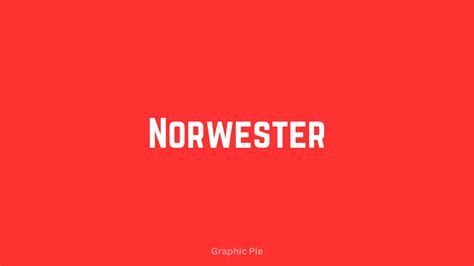
Crafting Winning Designs With Canva Baseball Fonts
Hey guys! Ever wanted to knock your design projects out of the park? Well, today, we’re diving deep into the world of Canva baseball fonts , and trust me, it’s a game-changer! These fonts aren’t just for sports-themed projects; they bring a cool, energetic vibe to all sorts of designs. Whether you’re crafting social media posts, designing event flyers, or even sprucing up your website, a well-chosen baseball font can add that extra punch. Let’s get started on how you can use these fantastic fonts in Canva to create designs that are sure to be a home run!
Why Choose Baseball Fonts for Your Designs?
So, why the craze for baseball fonts ? Seriously, why should you even bother? Well, first off, they’re super versatile! Sure, they scream ‘sports,’ but they also have this awesome, vintage, and sometimes even a modern feel. Think about it: they evoke a sense of nostalgia, tradition, and good ol’ American fun. This makes them ideal for a wide array of projects. Plus, they’re generally easy to read, which is a big win when you want your message to be clear. I mean, nobody wants to squint to figure out what your flyer is saying, right? They’re perfect for creating a sense of excitement and energy! From creating logos to designing posters for the upcoming game, baseball fonts are the perfect solution. It can give your content a professional look.
The Versatility of Canva Baseball Fonts
Baseball fonts are more than just about bats and balls; they’re about capturing a vibe. You can use them for everything from team logos and merchandise to event promotions and even personal projects. Imagine creating a retro-themed party invitation, a cool t-shirt design, or even a sleek website header – all made better with the right font. Moreover, the versatility of these fonts is really what makes them stand out. You have the classic, blocky styles that shout ‘sports,’ and then you have the more stylized, script-like fonts that add a touch of elegance. This allows you to mix and match to find something that perfectly fits your needs. You can easily find the perfect font that matches your needs. Also, a good Canva baseball font can make your content and designs look amazing!
Where to Use Baseball Fonts
The applications are endless, honestly. Consider these examples:
• Team Logos: Create a strong brand identity for your team. The right font can make your logo instantly recognizable and memorable.
• Event Flyers: Promote your sports events with eye-catching flyers that grab attention.
• Social Media Graphics: Design engaging social media posts to boost your online presence.
• Merchandise: Design cool t-shirts, hats, and other merchandise.
• Personal Projects: Add a sporty touch to your personal projects, such as scrapbooks or invitations.
Finding the Perfect Baseball Font in Canva
Alright, let’s get down to the nitty-gritty: finding the ideal baseball font in Canva. Canva’s library is massive, so finding the right one might seem a bit daunting. But don’t worry, I’m here to guide you through the process, step by step! This is a simple process that will help you create better content.
5. Preview and Experiment: Canva allows you to preview how each font looks with your text. Click on different fonts to see them in action. Experiment with different sizes, colors, and styles to see what works best for your design.
6. Filter by Style: If you’re looking for something specific, try filtering by font styles like ‘bold,’ ‘script,’ or ‘sans-serif.’ This can help you find fonts that meet your specific needs.
7. Choose Your Font: Once you’ve found the perfect font, click on it to apply it to your text. Adjust the size, color, and spacing as needed to create your final design.
Tips for Selecting the Right Font
Choosing the right font is crucial for any design. Here are a few tips to help you make the right choice:
• Consider Your Audience: Think about who you’re trying to reach. A fun, playful font might be perfect for kids’ sports events, while a more professional font may be suitable for a high-school or college team.
• Match the Tone: The font should match the overall tone of your design. If you’re going for a vintage look, choose a retro-style font. If you want something modern, opt for a clean, bold font.
• Ensure Readability: Make sure your font is easy to read, especially if you’re using it in a headline or a large block of text. Avoid fonts that are too ornate or difficult to decipher.
Conclusion: Hit a Home Run with Canva Baseball Fonts!
So there you have it, folks! Using Canva baseball fonts opens up a world of creative possibilities. From team logos to event flyers and beyond, these fonts can add energy and personality to any design. With the tips and tricks we’ve covered today, you’re well on your way to creating designs that will knock it out of the park. Now go out there and start designing. Happy creating, and remember, have fun with it! Keep experimenting with the different fonts, colors, and layouts to create stunning designs that will get noticed!